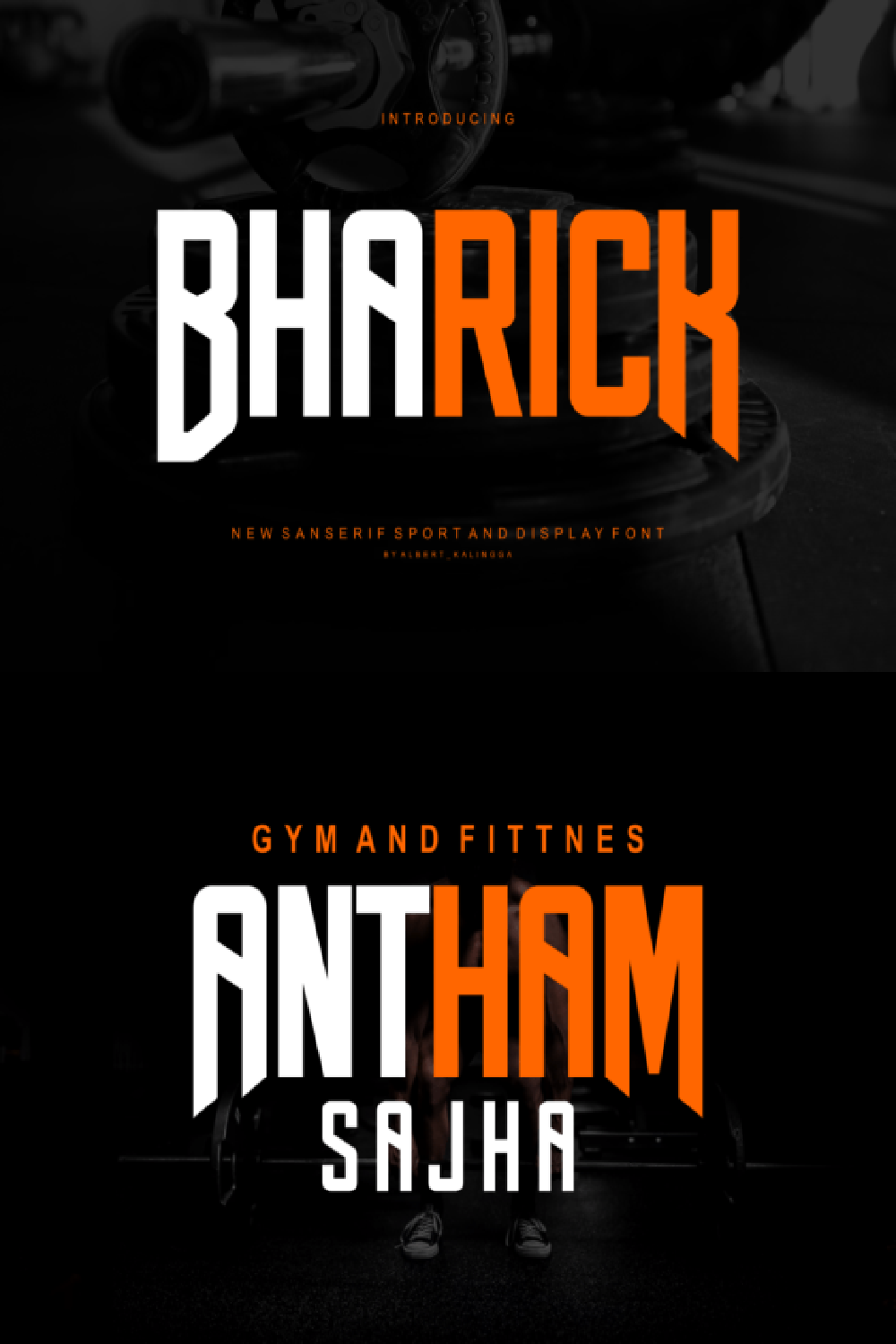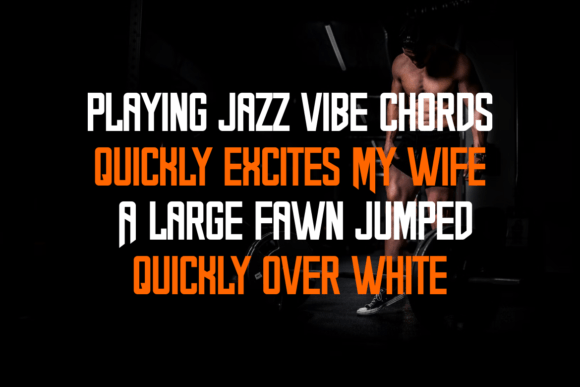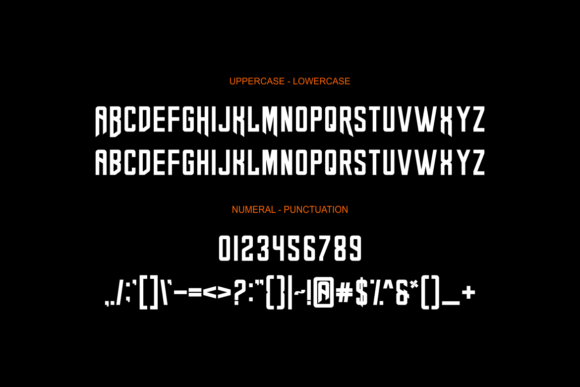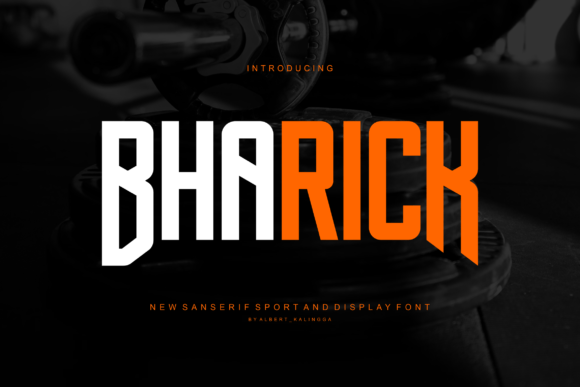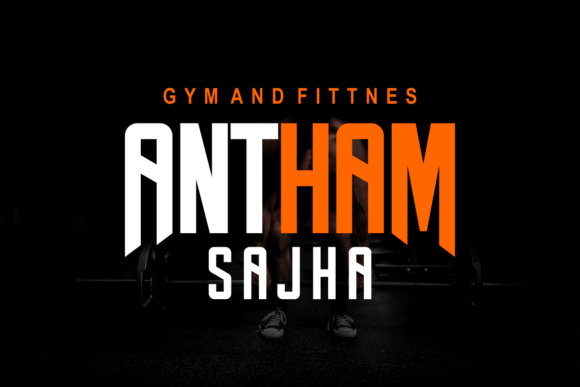
Bharick Font: A Bold Sans Serif for Sport & Logo Design
About the Bharick Font
Elevate your designs with Bharick Font, a font that combines sophistication with readability. Bharick is a bold and assertive sans serif font. No matter the topic, this font will be an incredible asset to your fonts’ library, as it has the potential to elevate any creation.
Bharick Font Usage Examples